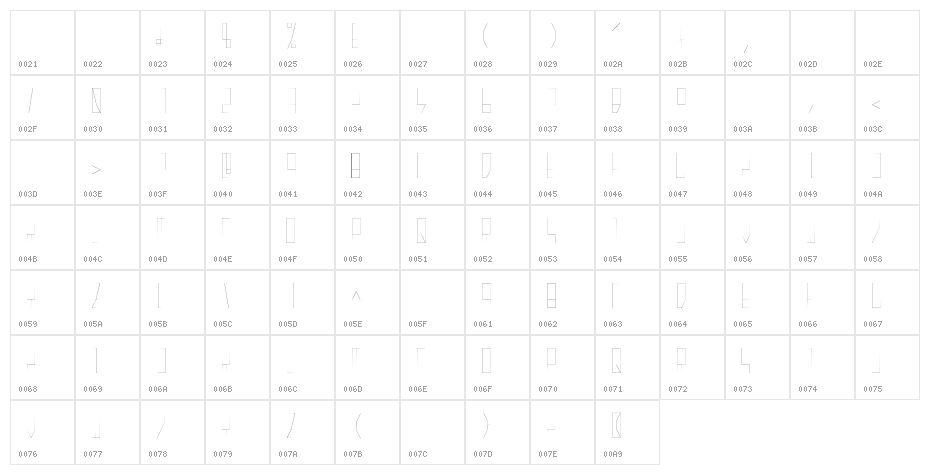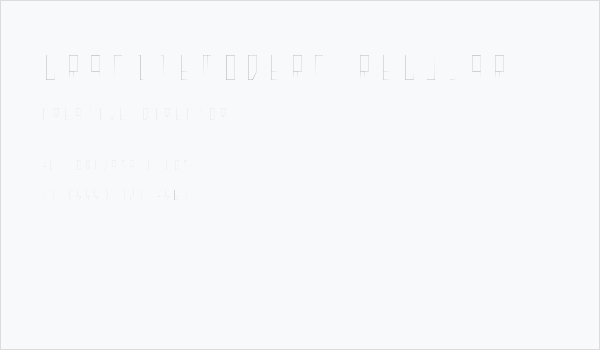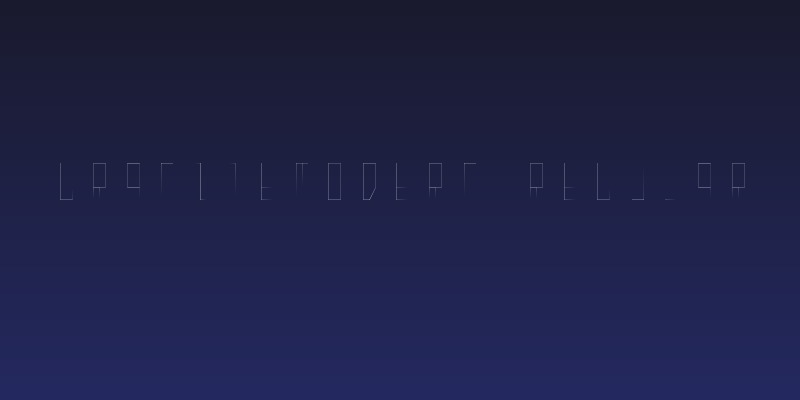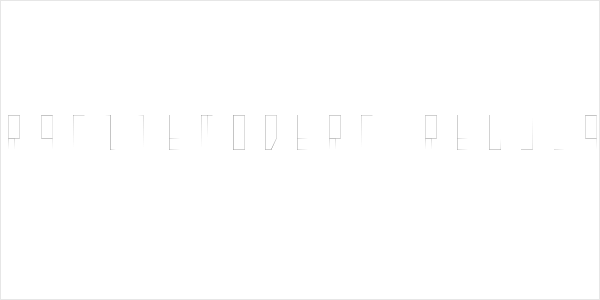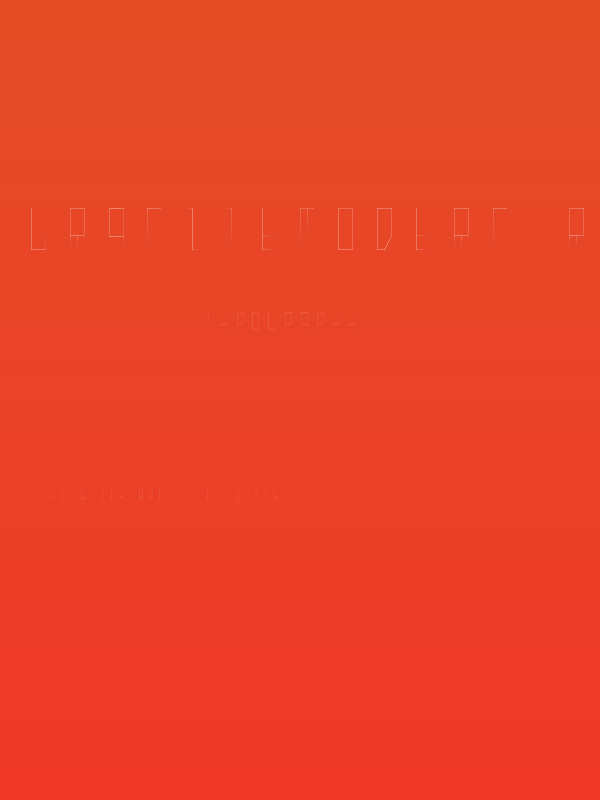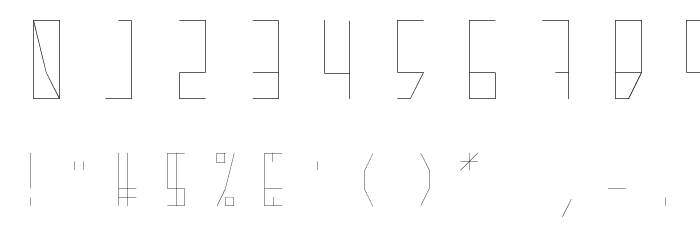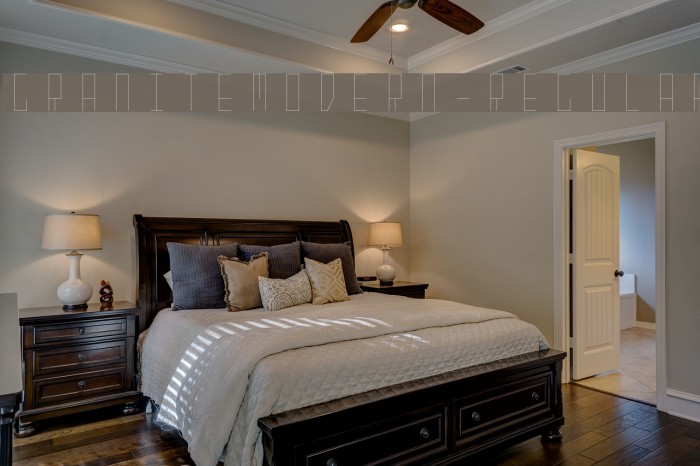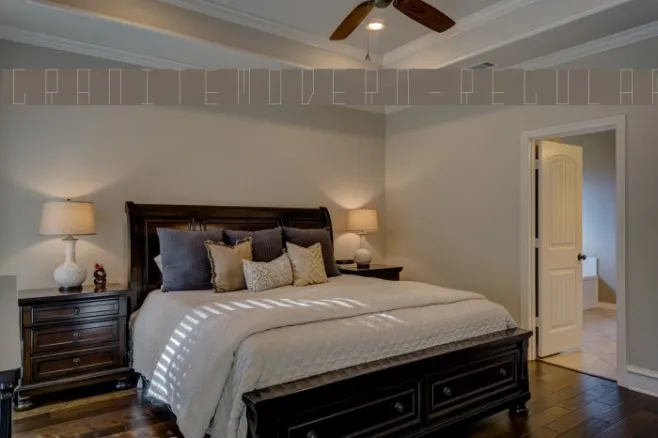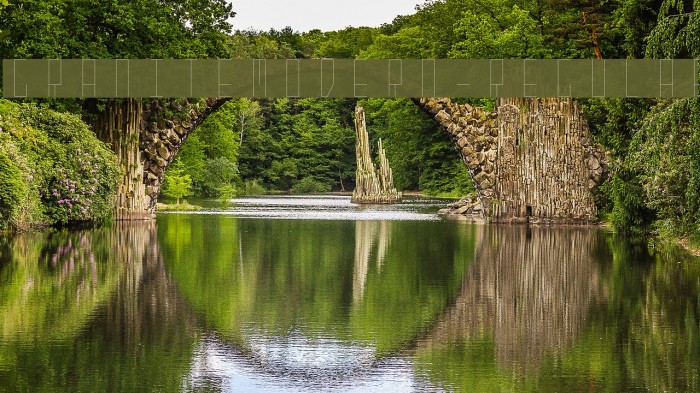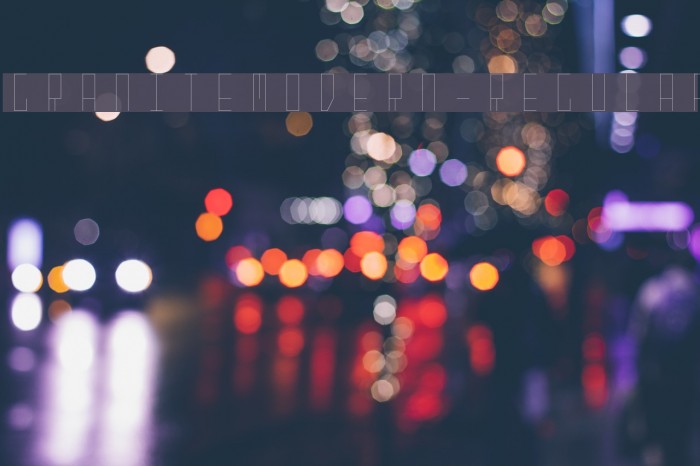
GraniteModern-Regular Font
GraniteModern-Regular Description
This font features a modern, geometric design with clean, straight lines and sharp angles. The characters are constructed with a minimalist approach, emphasizing simplicity and clarity. The uppercase and lowercase letters share a consistent height, contributing to a uniform appearance. The numerals and special characters maintain the same geometric style, ensuring cohesion across all elements. The thin strokes and open spacing give it an airy feel, making it suitable for contemporary design projects.
| Use Case | Logos, Headlines, Digital interfaces |
| Proposed Projects | Ideal for modern branding, tech-related projects, minimalist posters, and digital interfaces. |